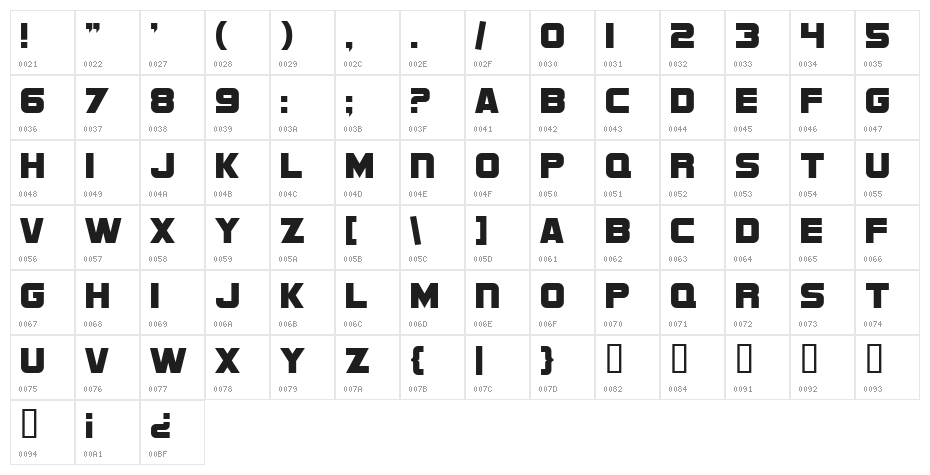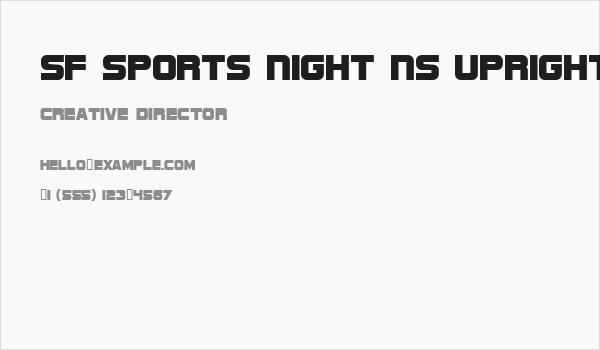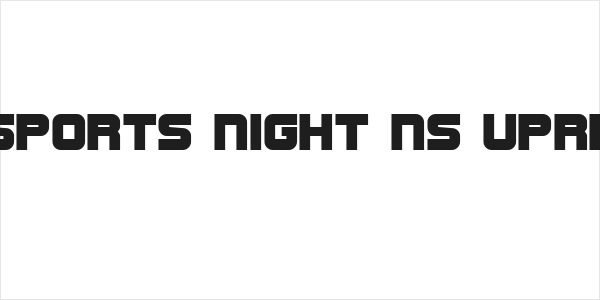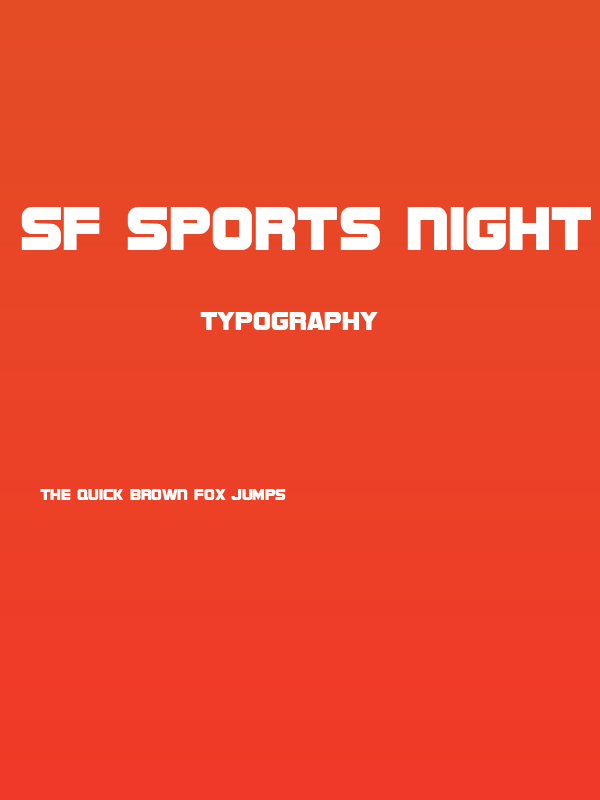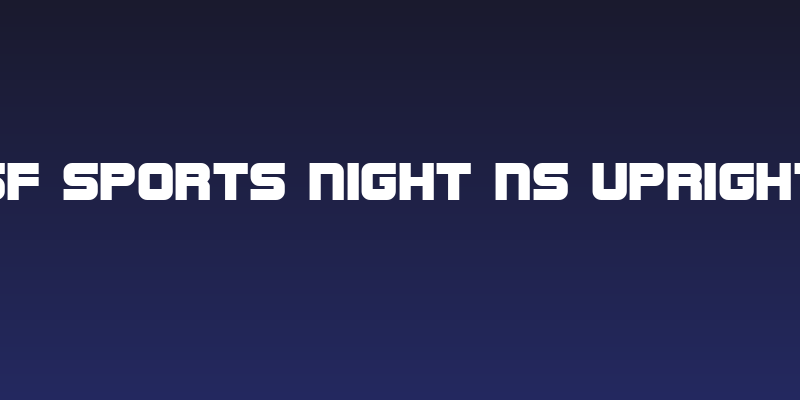
SF Sports Night NS Upright Font
SF Sports Night NS Upright Description
This font features a bold, geometric design with strong, angular lines and a modern aesthetic. The uppercase letters are uniform in height, creating a cohesive and structured appearance. The characters have a blocky, robust style that conveys strength and stability. The numbers and special characters maintain this boldness, ensuring consistency across all elements. The font's design is reminiscent of sports or athletic themes, making it ideal for projects that require a dynamic and energetic feel. Its clear, legible form makes it suitable for headlines and attention-grabbing text.
| Proposed Projects | Ideal for sports branding, event posters, team logos, and dynamic headlines. |